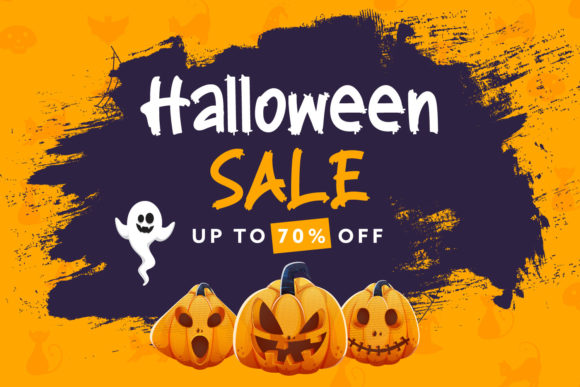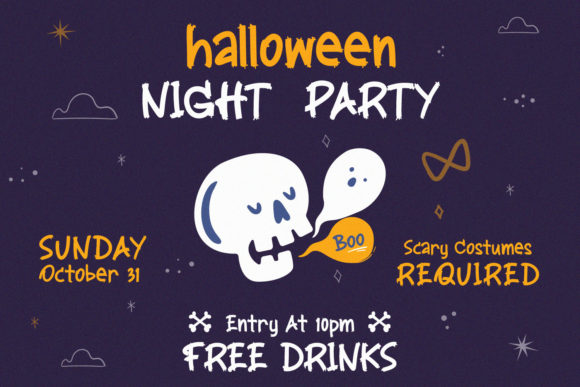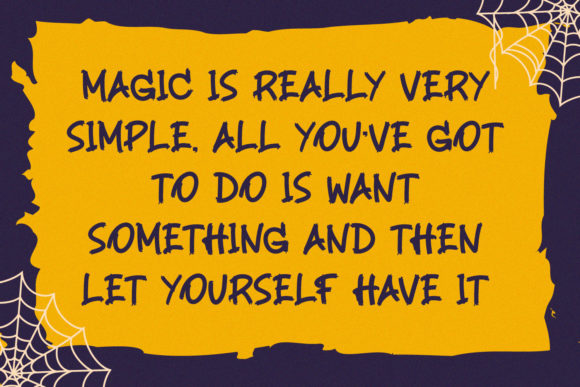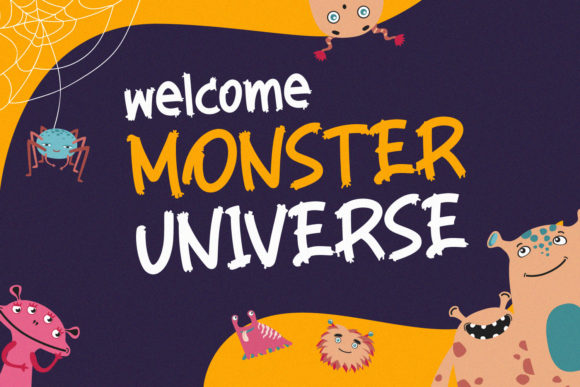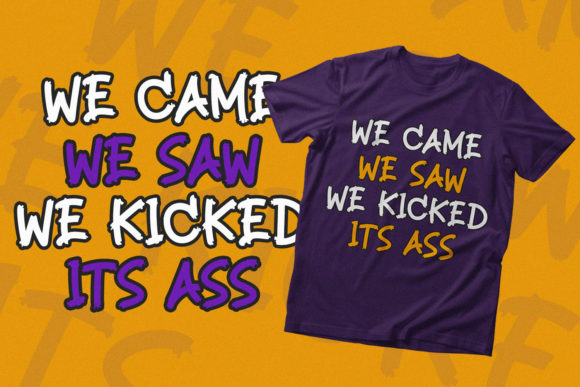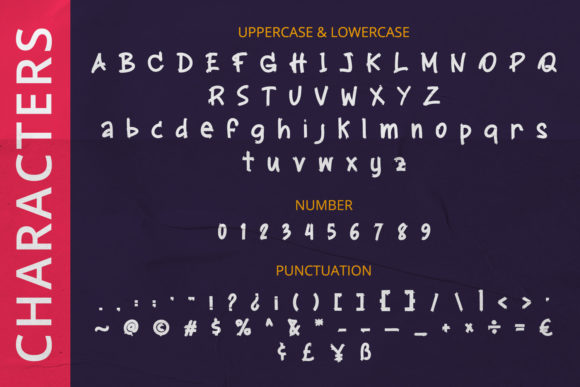
Introduction to Midnight Shadows Font Font
Fonts play a crucial role in design, and the Midnight Shadows Font font is a typeface that brings both character and versatility to any project. Whether you’re working on a branding project, a website, or a print design, the Midnight Shadows Font font offers a unique style that can elevate your work.
Midnight Shadows is a cool and brushed display font.
This font is ideal for writing web designs, business cards, or pretty much anything else that requires a unique touch .
Key Features of Midnight Shadows Font Font
Why Choose Midnight Shadows Font Font?
The Midnight Shadows Font font is more than just a typeface – it’s a design tool that helps you communicate your message with style and clarity. Its unique character set and versatile design make it suitable for a wide range of applications, from elegant invitations to bold headlines.
With its carefully crafted letterforms and balanced proportions, the Midnight Shadows Font font ensures readability and visual appeal across all mediums.
What makes Midnight Shadows Font font special?
The Midnight Shadows Font font stands out with its unique design, exceptional readability, and versatility across various design applications.